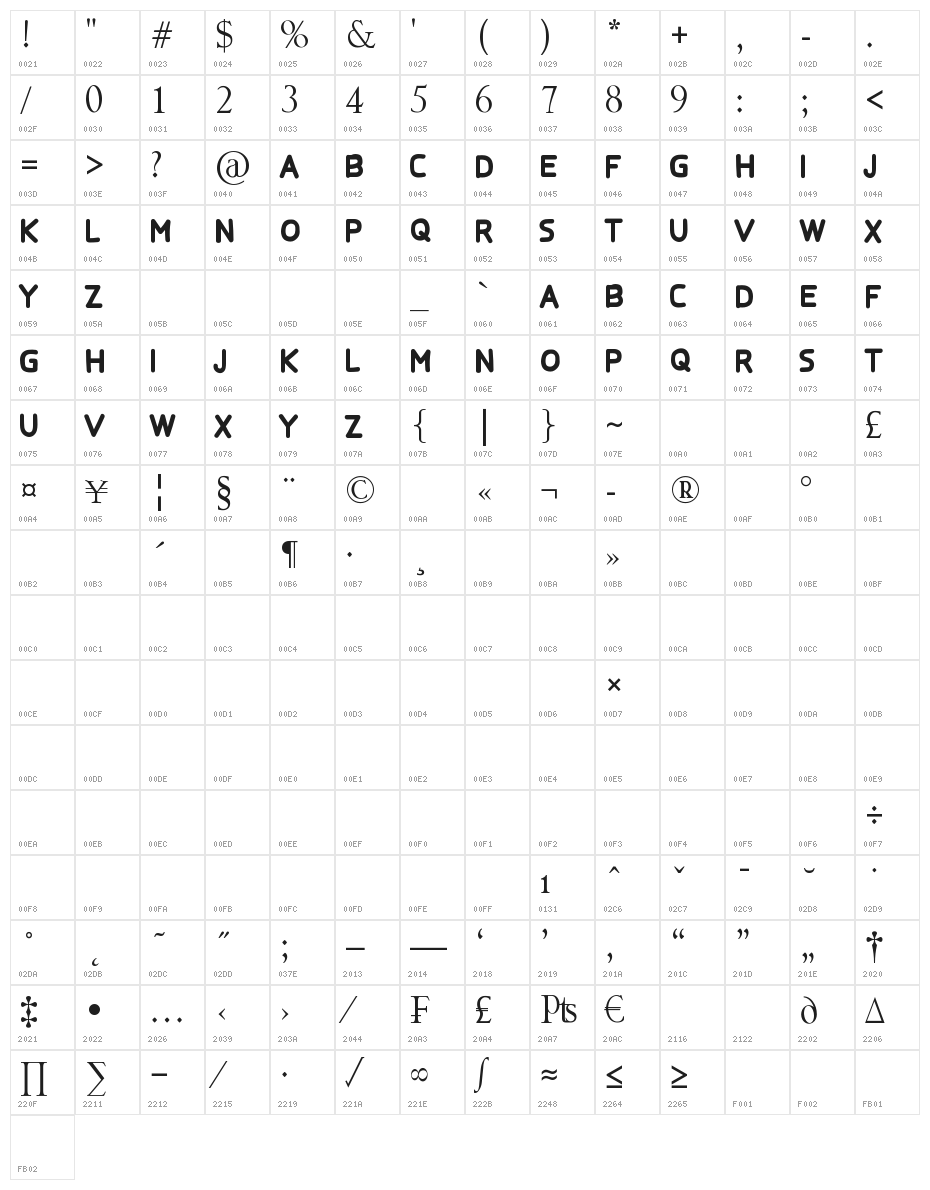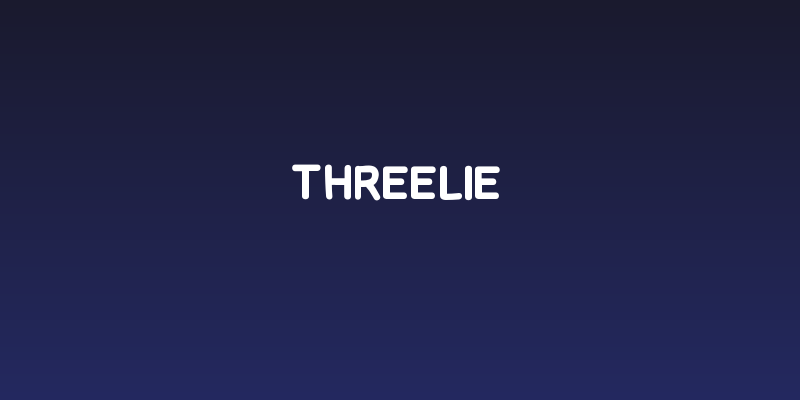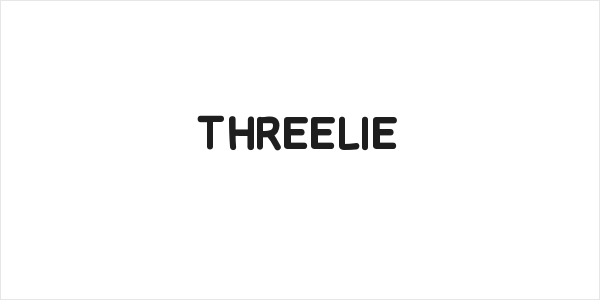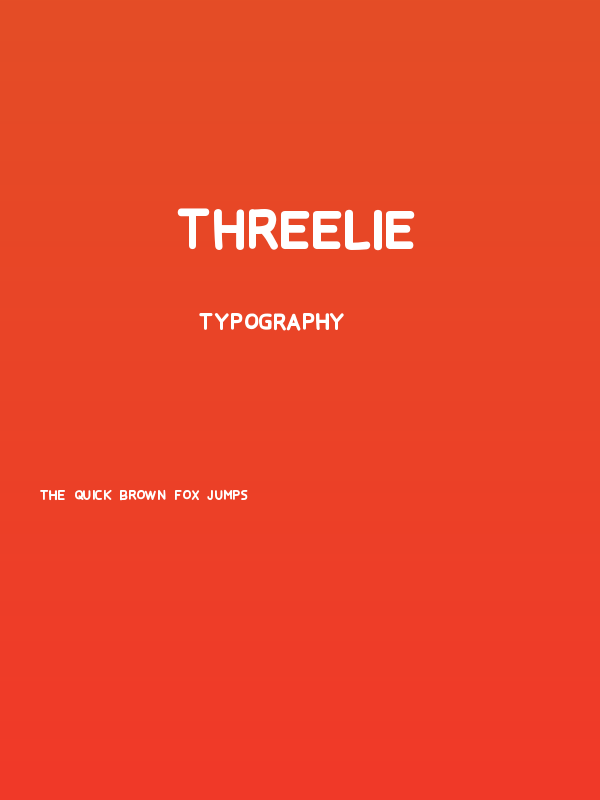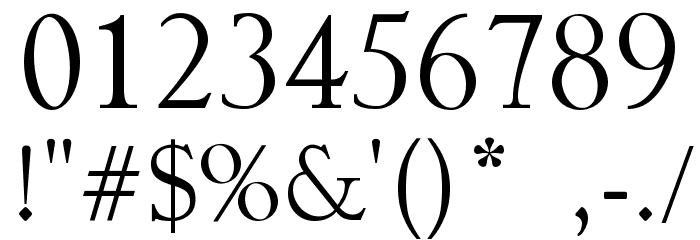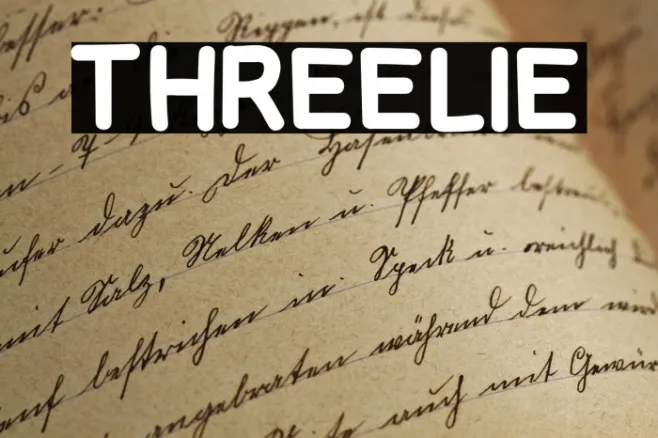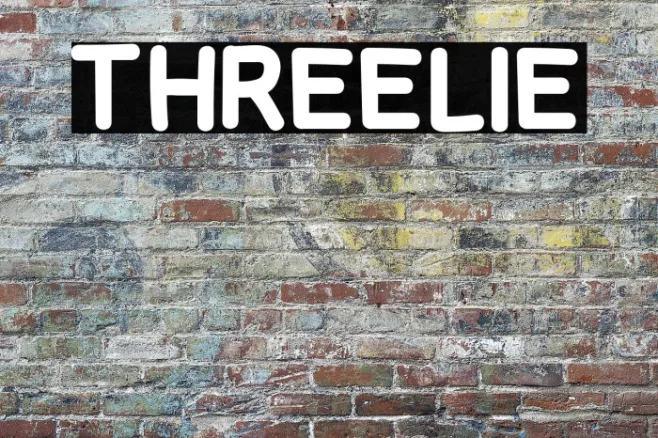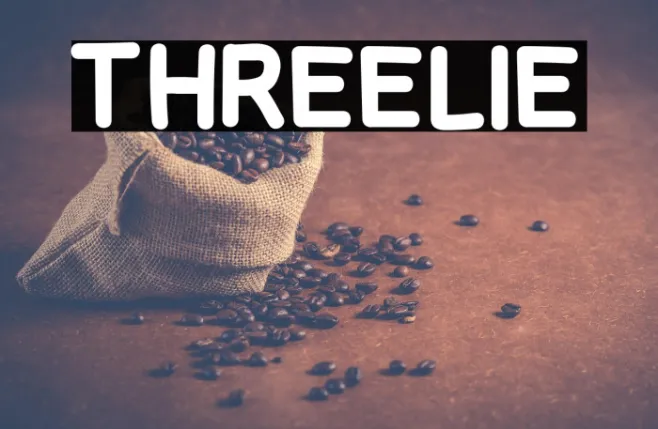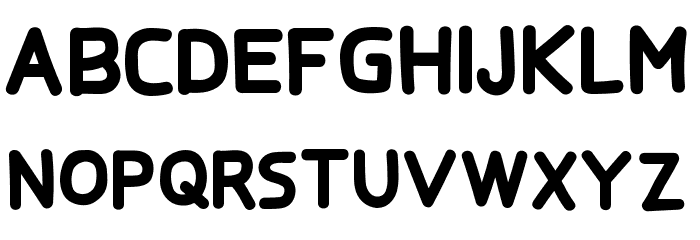
THREELIE Font
THREELIE Description
This font features a playful and rounded style with a friendly and approachable appearance. The uppercase letters are bold and slightly condensed, giving them a strong presence. The lowercase letters maintain the same rounded characteristics, ensuring consistency throughout the typeface. The numerals are clear and easy to read, with a slight variation in stroke thickness that adds a touch of elegance. Special characters are well-designed, complementing the overall style. This font is versatile, suitable for both digital and print media, and can be used in a variety of design projects.